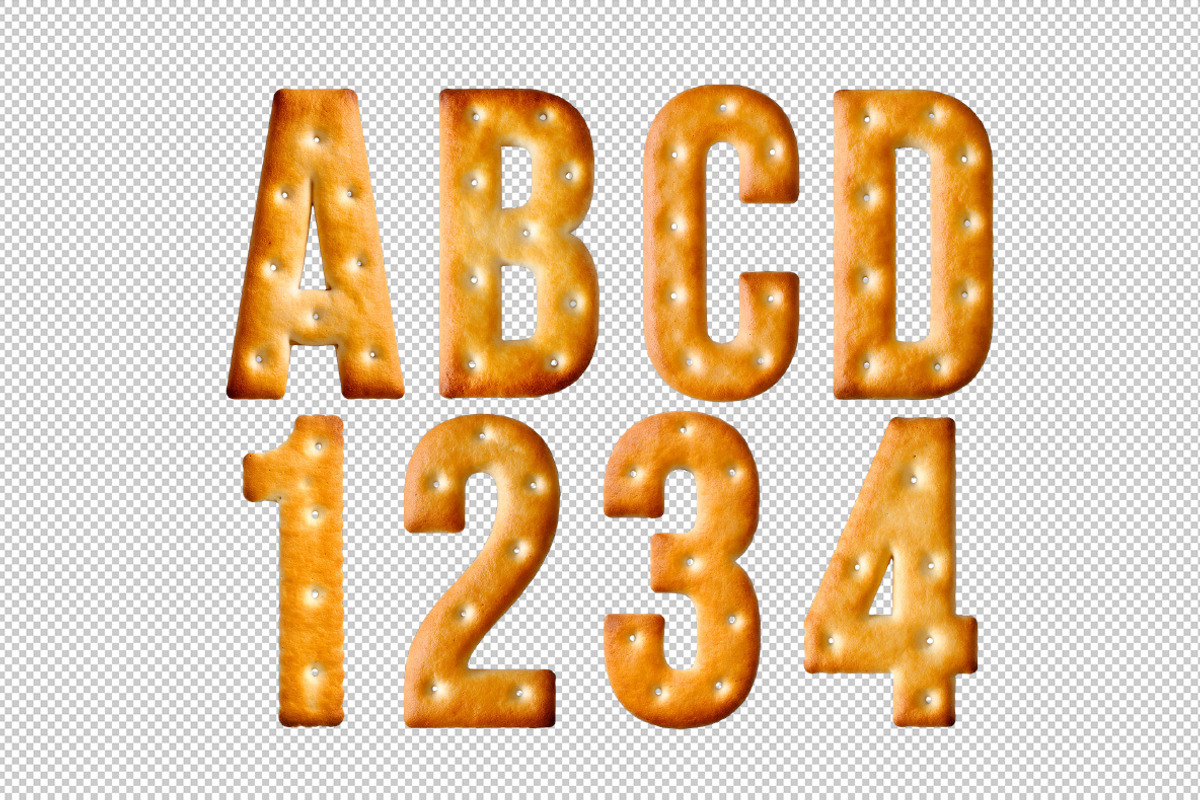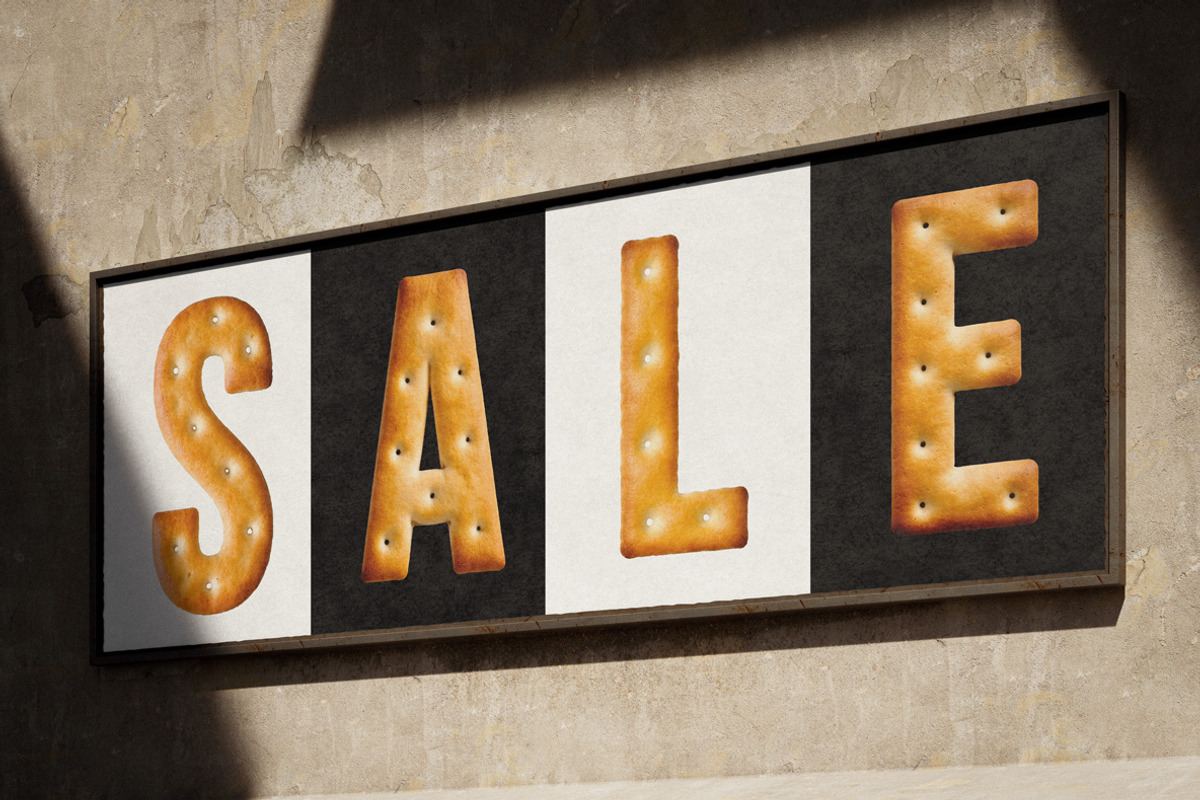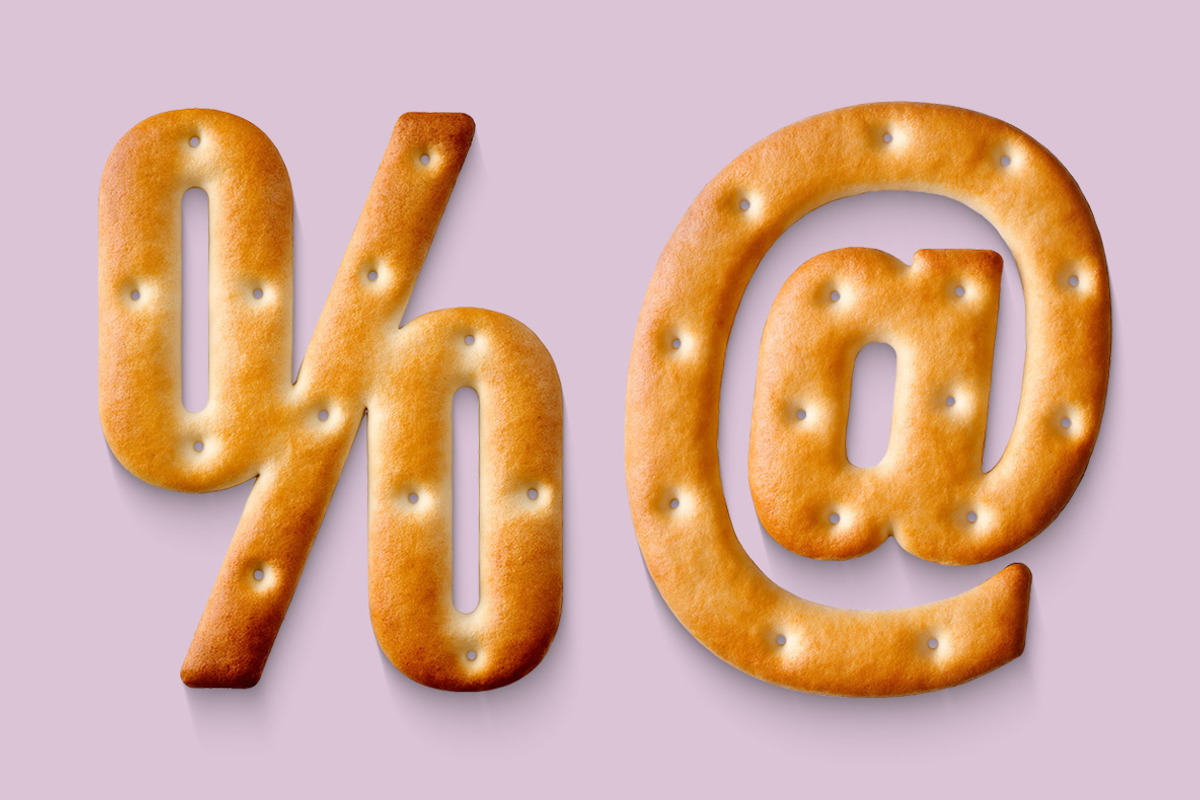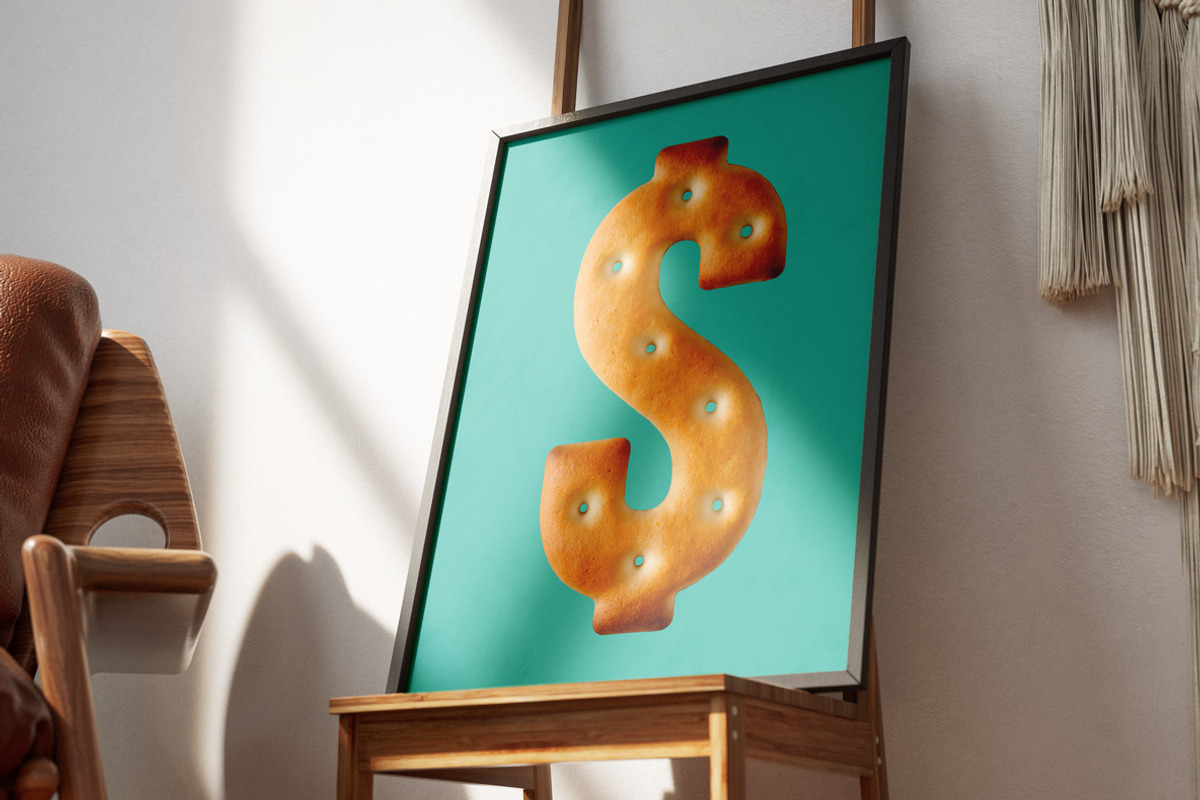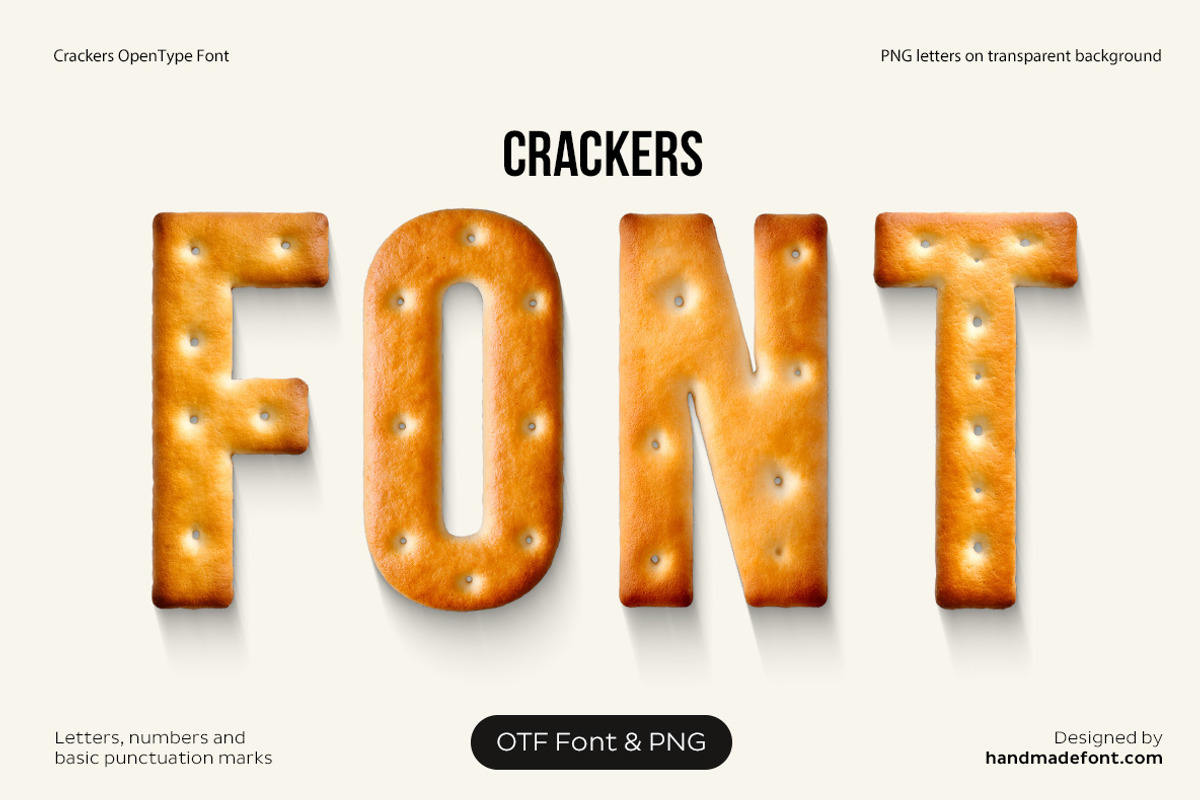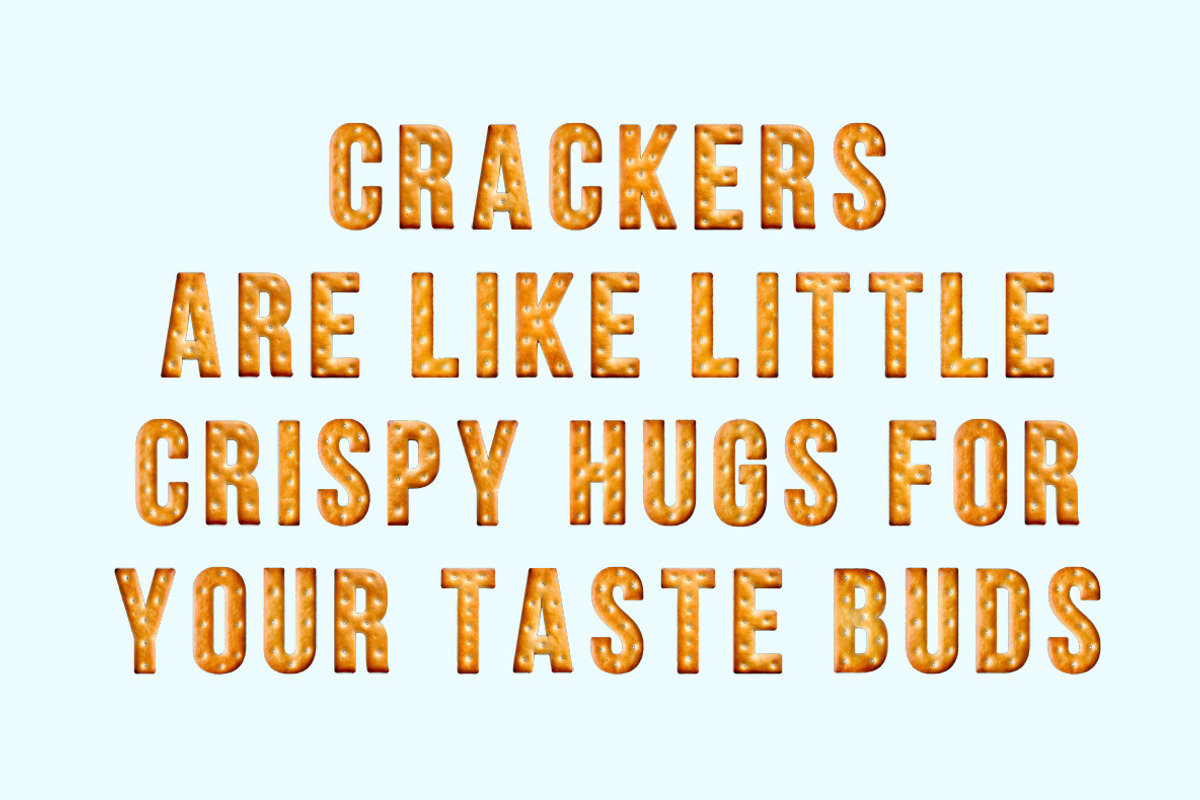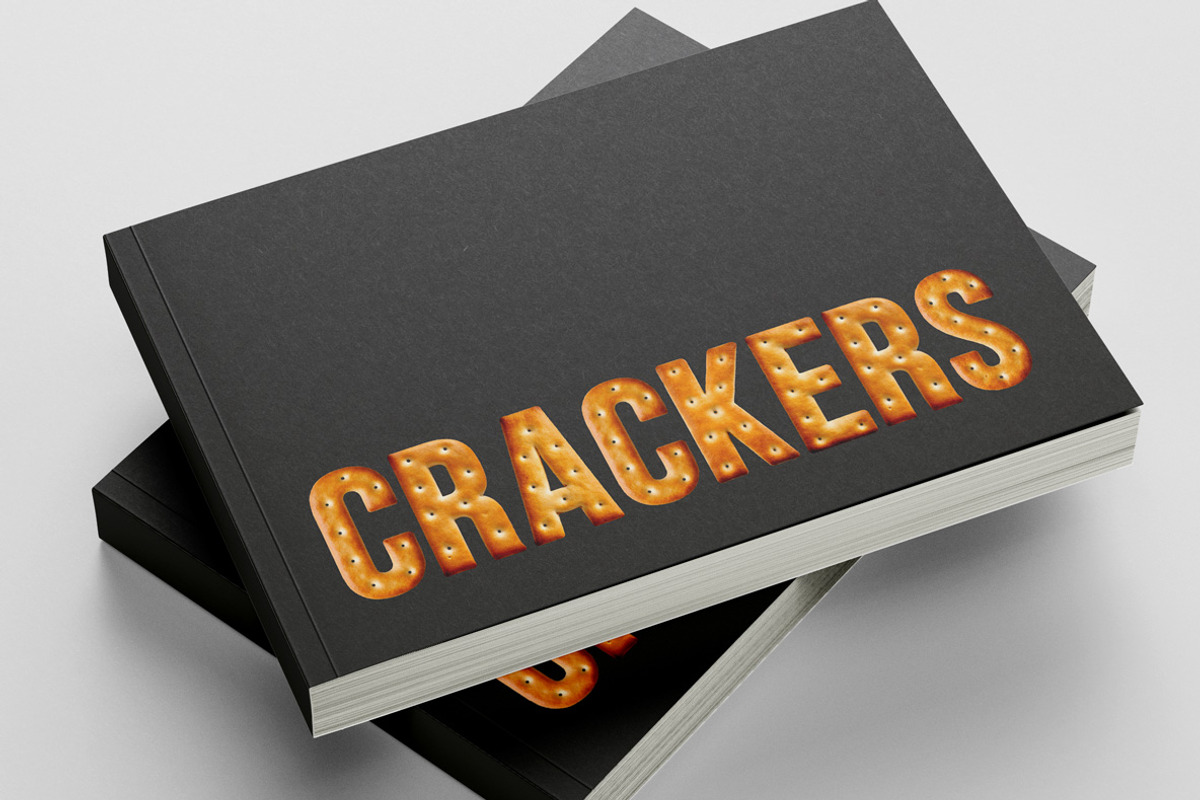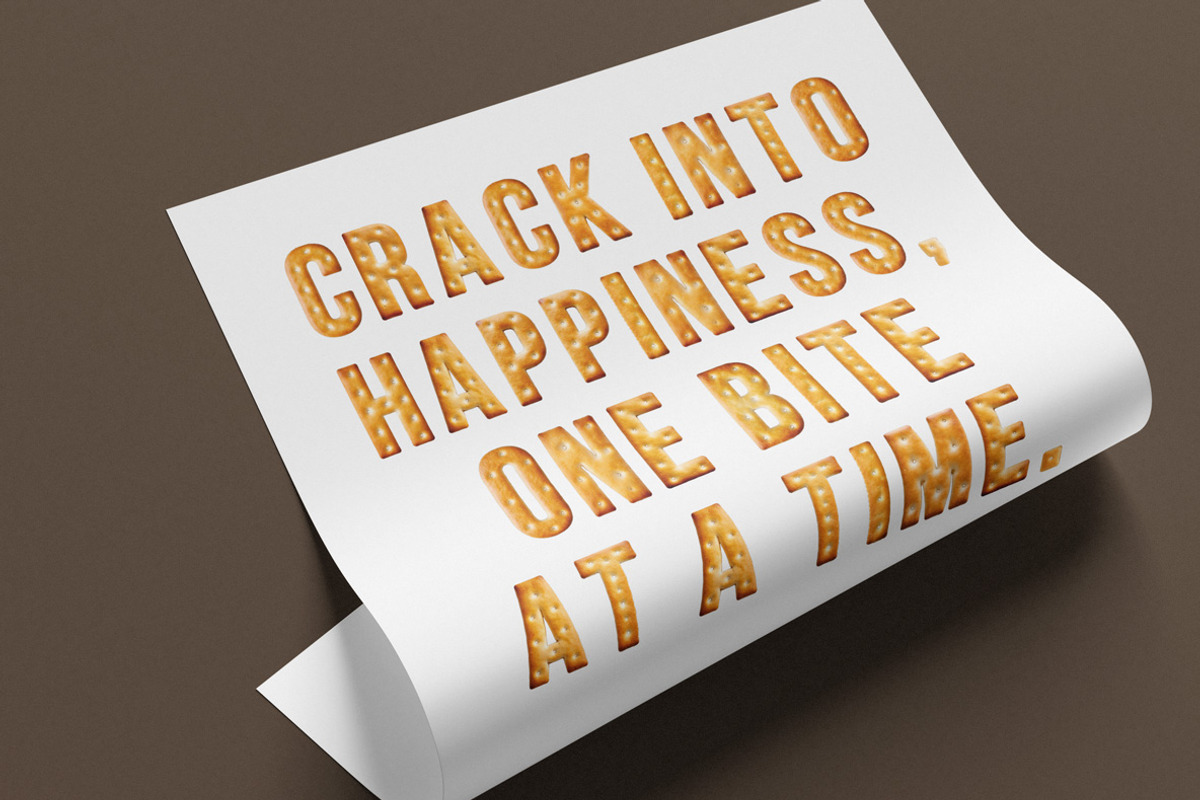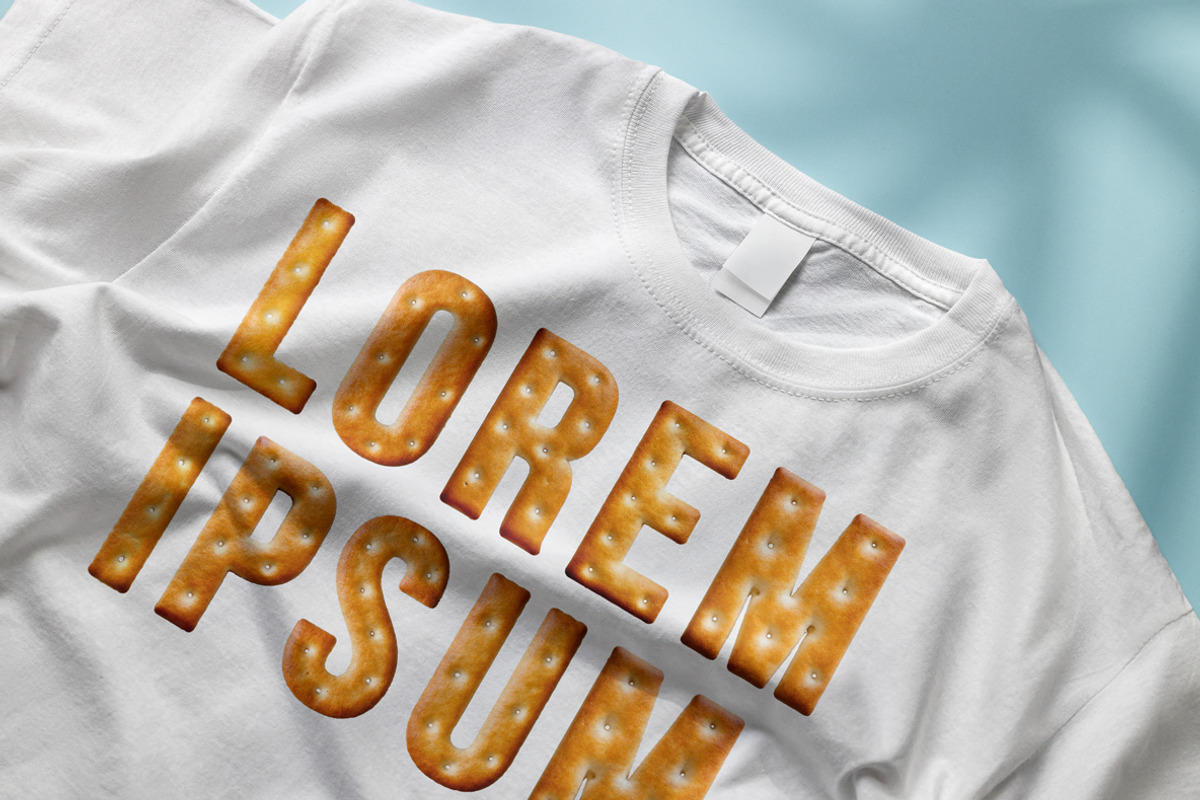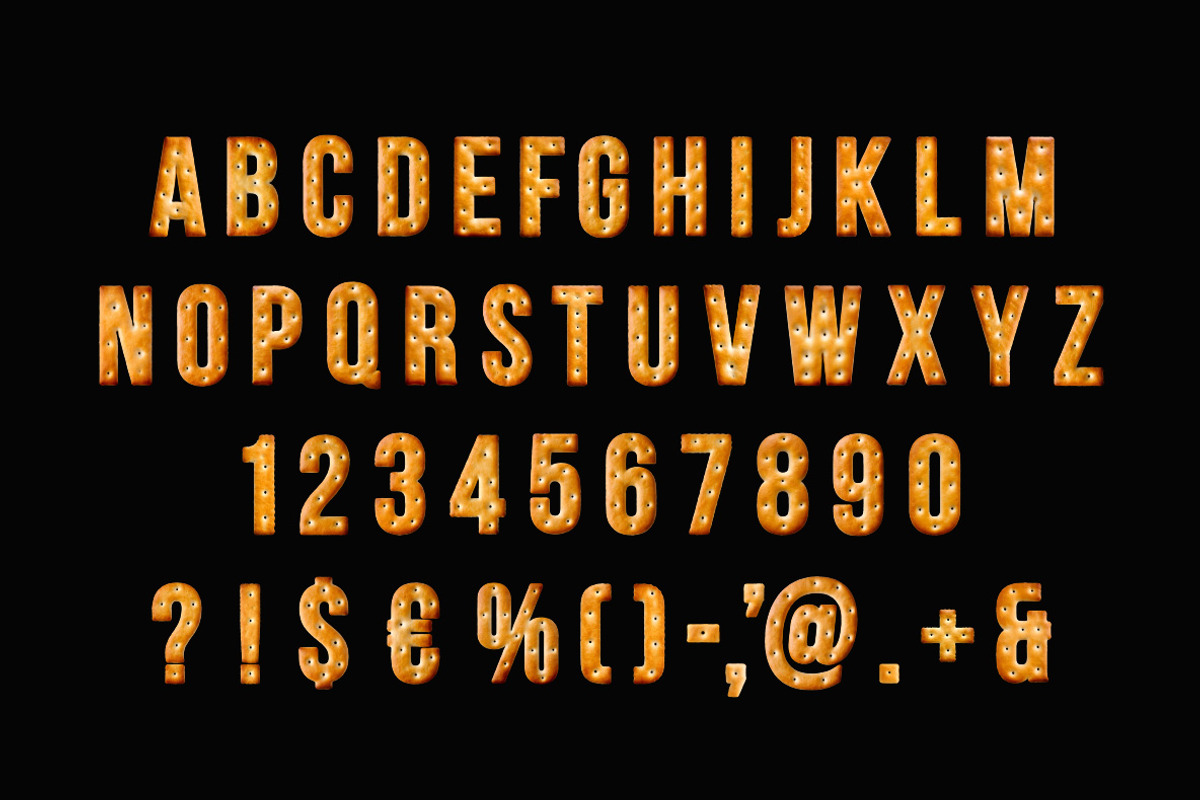
Crackers Font
Crunchy and deliciously designed, the Crackers Font brings a tasty twist to typography! Each letter mimics a crispy, golden-brown cracker, complete with tiny perforations and a lightly baked texture. This Crackers-inspired font captures the essence of a savory snack, making it perfect for food design, playful branding, or creative projects that crave a touch of edible font charm. Whether you’re crafting a menu, bakery logo, or snack packaging, this Crackers typography adds a warm, toasty appeal. Bite into creativity with Crackers lettering, where snack-inspired design meets mouthwatering aesthetics in a truly baked-to-perfection alphabet!
A high definition OpenType Font. Contains uppercase characters, numerals and basic punctuation. (Draw height roughly 800 pixels). All letters and glyphs that comprises this font you can see on the preview.
- Letters : A B C D E F G H I J K L M N O P Q R S T U V W X Y Z
- Numbers : 0 1 2 3 4 5 6 7 8 9
- Others : ! ? - . ' $ € % & #